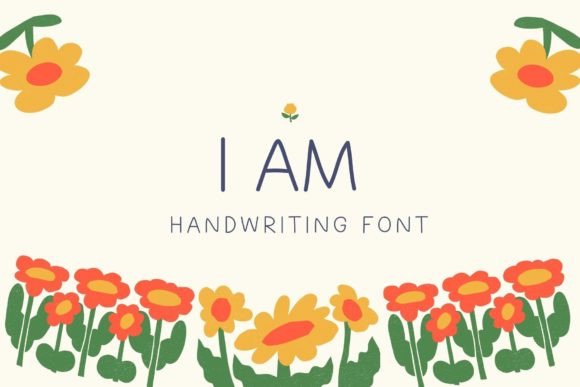
Step into the realm of charming expression with I Am Font, a delightful script font family that captures the essence of handwritten beauty. Inspired by the art of penmanship, this font was meticulously crafted by Phaprae to bring a touch of warmth and authenticity to your creative endeavors.
With its effortlessly flowing strokes, I Am Font exudes a sense of playfulness and intimacy. It's the perfect choice for adding a personal touch to your designs, whether you're creating heartfelt quotes, eye-catching logos, or simply jotting down your thoughts.
Dive into a world of creative possibilities with I Am Font. Its versatility knows no bounds, making it an invaluable asset for a wide range of projects. From school projects and social media posts to web design and menus, this font will seamlessly adapt to your vision, adding a touch of elegance and charm.
Unleash your creativity and let your imagination soar with I Am Font. Its captivating design will grab attention and leave a lasting impression, making your projects shine brighter than ever before. Embrace the beauty of handwritten expression and elevate your designs to new heights with this enchanting font family.
Join the ranks of creative visionaries who have discovered the magic of I Am Font. Its enchanting aura will transform your words into works of art, leaving your audience captivated and inspired. Experience the joy of handwriting in a digital realm and unlock the full potential of your creative expression.